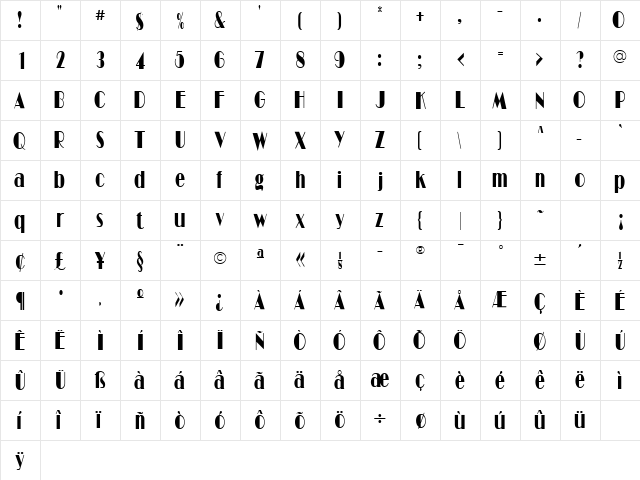
BarbeDisplayCondSSK Regular
Design Context for BarbeDisplayCondSSK Typeface
BarbeDisplayCondSSK is built around its visual character rather than neutral utility — its distinctive forms are designed to make an impression at display sizes.
Font Pairing: Pair with a clean neutral sans-serif for body copy to let BarbeDisplayCondSSK's character lead without overwhelming the composition.
Pro Tip: Treat BarbeDisplayCondSSK as the centrepiece of your typographic hierarchy. One strong heading set in a decorative face can carry an entire layout.